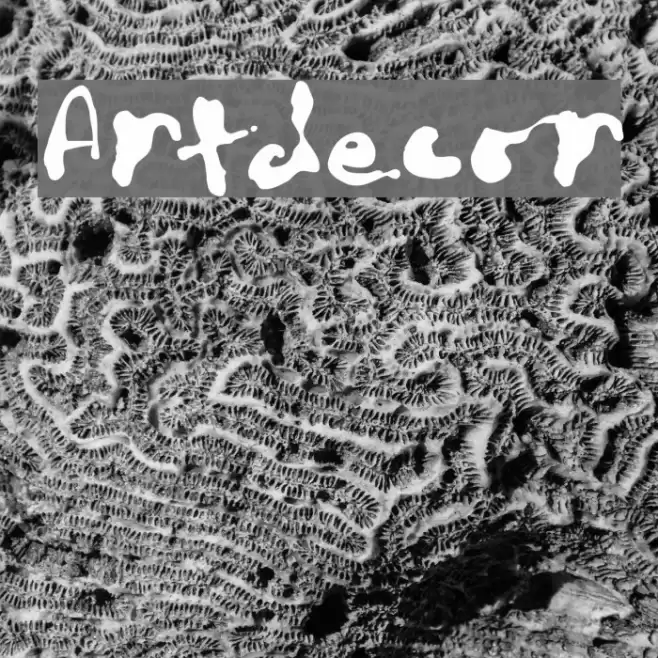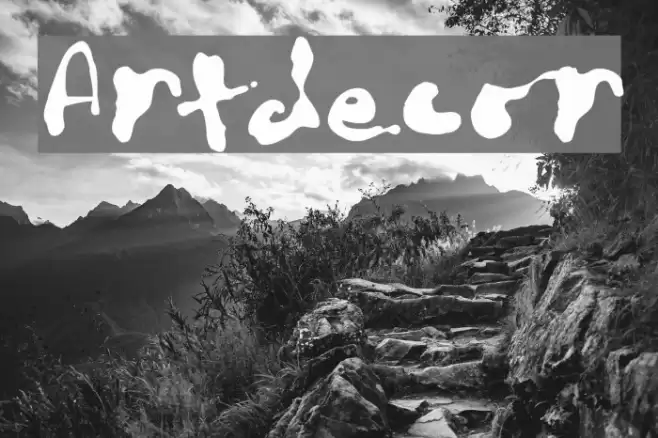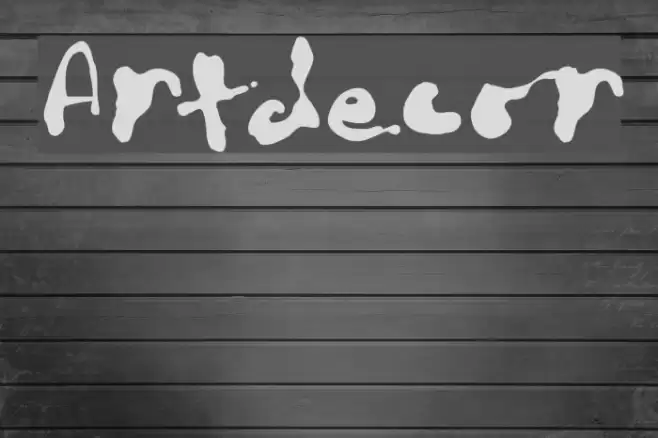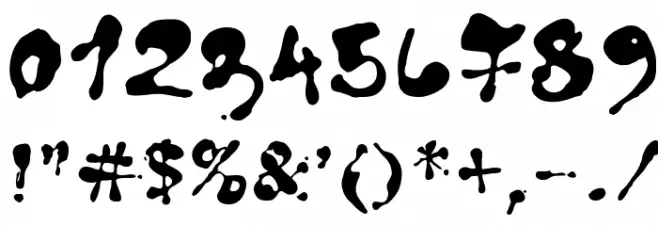
Artdecor Font
Artdecor Description
This font exhibits a unique and artistic style, characterized by its bold, irregular shapes and fluid, ink-like appearance. The letters have a playful and organic feel, with varying thicknesses and spontaneous splatters that give it a dynamic and expressive quality. The uppercase and lowercase letters maintain a consistent style, while the numbers and special characters follow suit with their own distinctive flair. This font is perfect for projects that require a creative and unconventional touch, making it ideal for artistic designs, posters, and branding that seeks to stand out.
A bold, artistic font with an ink-like, fluid appearance from Uncategorized fonts.
- Proposed Projects: Ideal for artistic designs, posters, branding, and projects needing a creative touch.
- Use Case: Headlines, Logos, Artistic designs